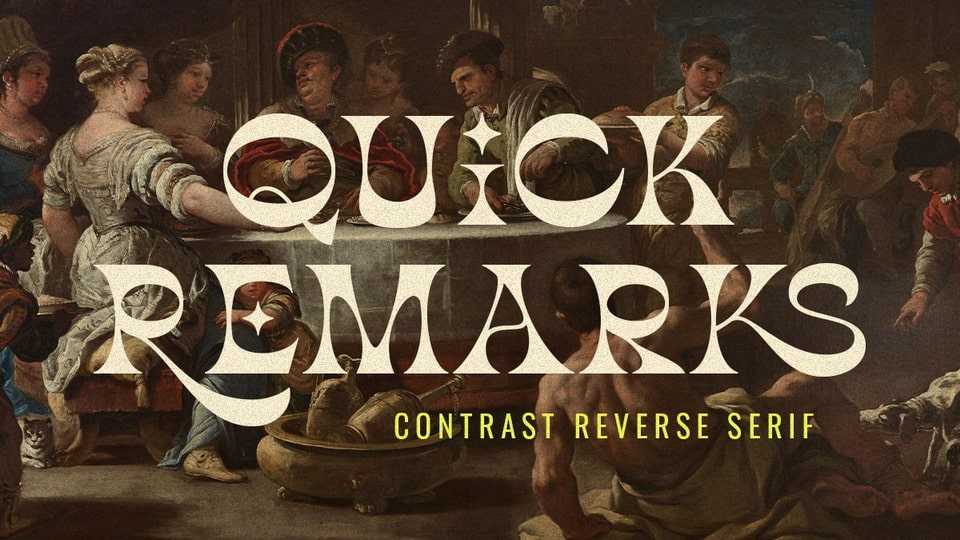
Download Quick Remarks font, a stylish and modern serif typeface with noticeable contrast. With unique uppercase and lowercase, Quick Remarks font will make your presentations, posters, and logos even more stunning.